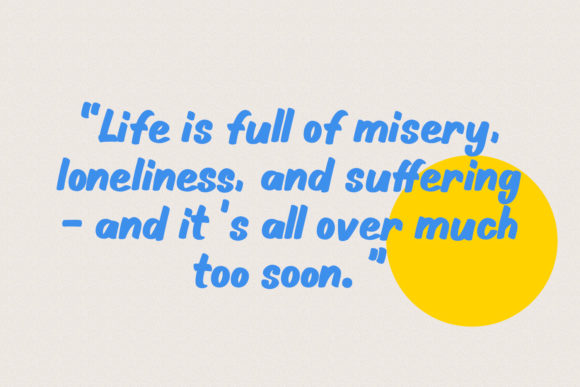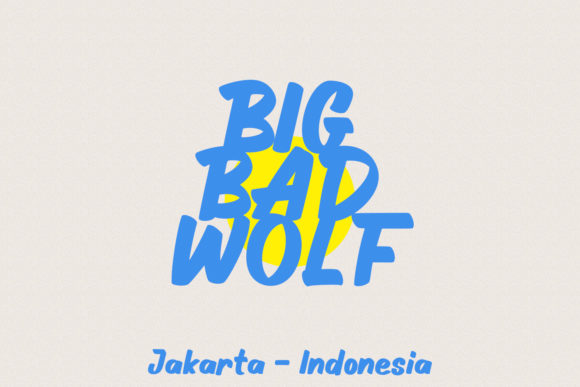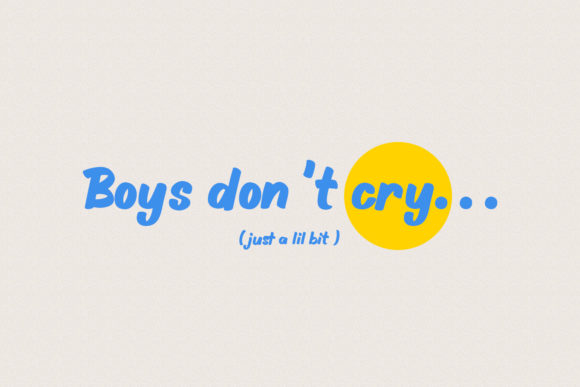
Introduction to Picnicast Font
Have you ever found yourself sitting in a park on a sunny day, surrounded by the sound of children’s laughter and the smell of freshly cut grass? It’s moments like these that spark creativity and inspire new ideas. For designers, the perfect font can make all the difference in bringing a project to life. That’s where the Picnicast Font comes in – a fun and friendly display font that’s sure to add a touch of joy to any design.
Whether you’re working on a cartoon-related design, a children’s game, or a quote that needs to stand out, the Picnicast Font is a valuable resource for designers. Its high-quality design and transparent background make it perfect for a wide range of creative projects, from book covers and posters to brand names and titles. And the best part? It’s available for free download, making it a must-have in any designer’s toolkit.
Key Features of Picnicast Font
- High-quality, unique design suitable for various creative projects, including graphic design, digital art, and publishing.
- Transparent background, allowing for easy layering and composition in design software.
- Designed with a modern aesthetic, featuring clean lines and a minimalist approach to typography.
- Supports a wide range of languages, making it a versatile choice for global design projects.
- High-resolution design, suitable for use at large sizes and in high-resolution print applications.
Honest Review: Picnicast Font
As a designer, I’m always on the lookout for high-quality design resources that can elevate my creative projects. Recently, I had the chance to try out the Picnicast Font, and I’m excited to share my thoughts on it.
- ✨ The font is incredibly versatile, making it suitable for a wide range of creative projects, from blog posts to social media graphics.
- ✨ The transparent background option is a huge plus, allowing me to easily layer the font over any image or background.
- ⚠️ The font is not as extensive as some other popular font collections, with a relatively limited character set.
- ⚠️ Some users may find the font’s aesthetic to be a bit too playful or whimsical for their taste.
Overall, I’m impressed with the Picnicast Font. While it may not be the most comprehensive font collection, its unique style and transparent background option make it a valuable addition to any designer’s toolkit.
The Picnicast Font is a high-quality design resource that offers a unique and creative touch to any project. With a transparent background, it’s perfect for adding a personal touch to your design.
The Picnicast Font is suitable for various creative projects, including:
1. Social media graphics.
2. Blog posts and articles.
3. Business cards and letterheads.
4. Advertising materials.
Alternatives to Picnicast Font
Is the Picnicast Font suitable for print or digital use?
The Picnicast Font is designed to be versatile and suitable for both print and digital use. The font’s high-quality design ensures that it will look great on various devices, from high-resolution screens to printed materials. However, please note that the font’s transparency may not be visible in print, as it relies on a transparent background that is not supported by all printing technologies.